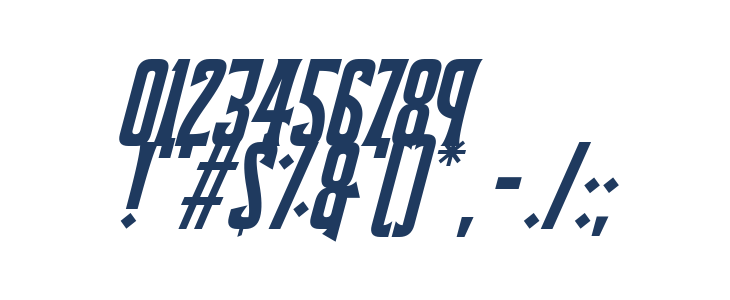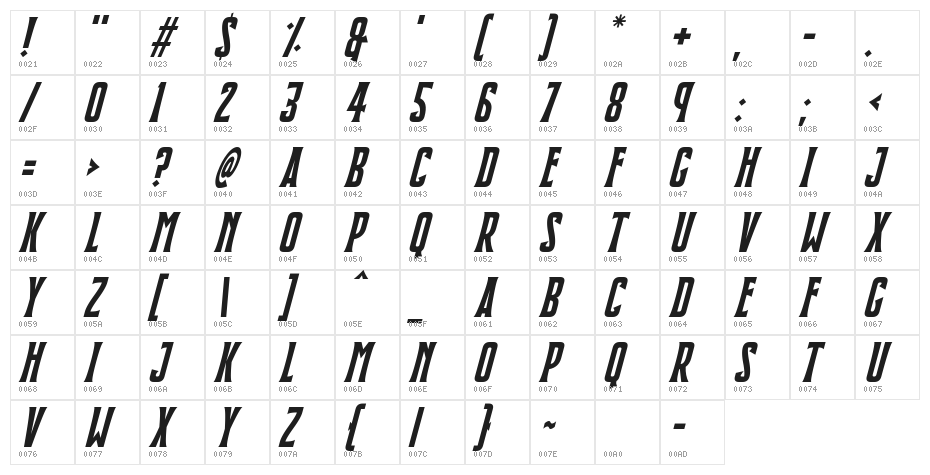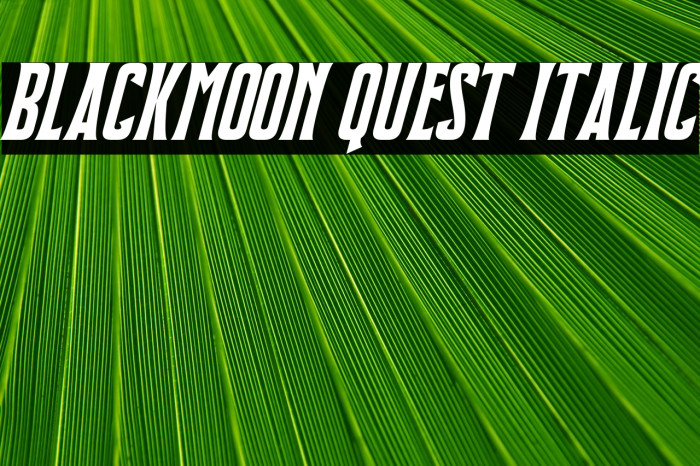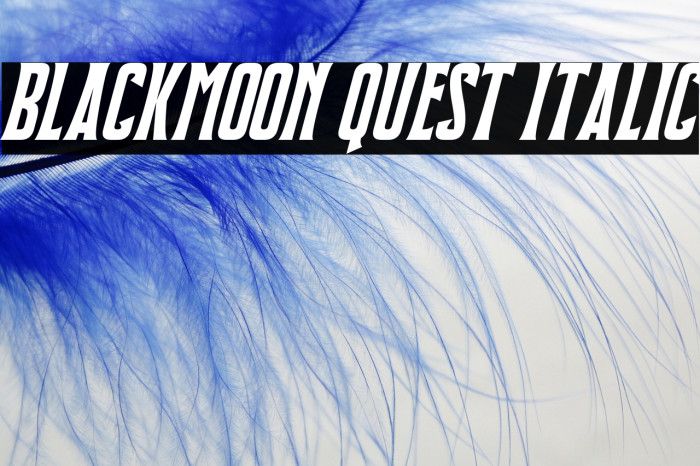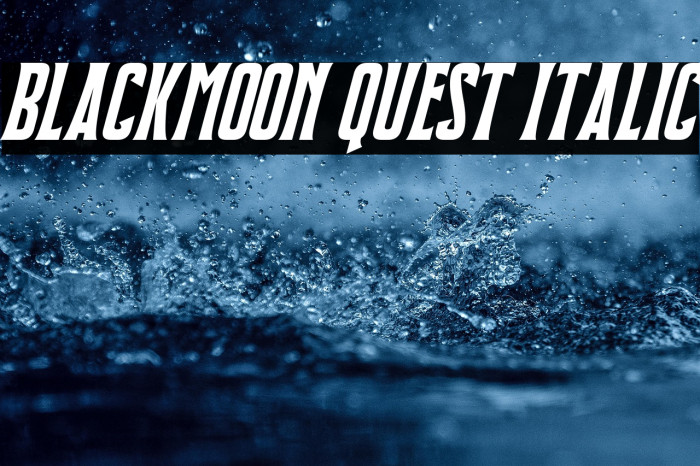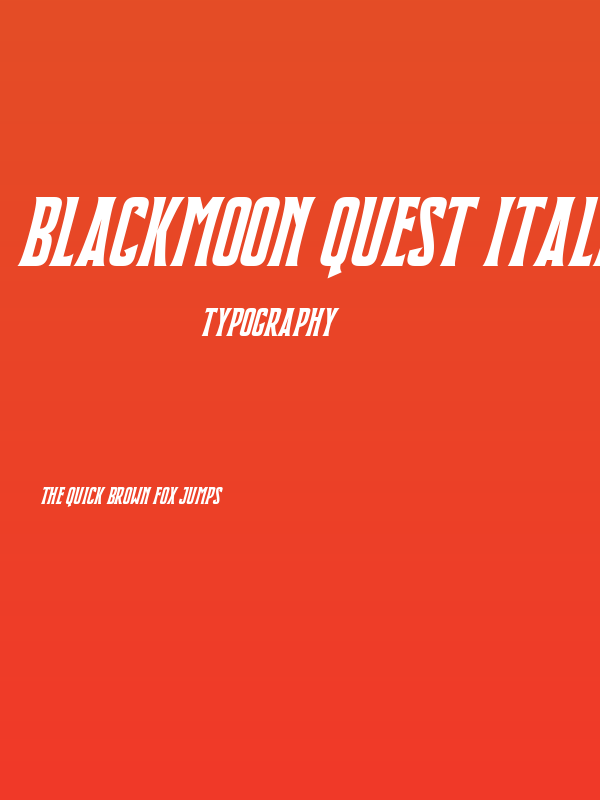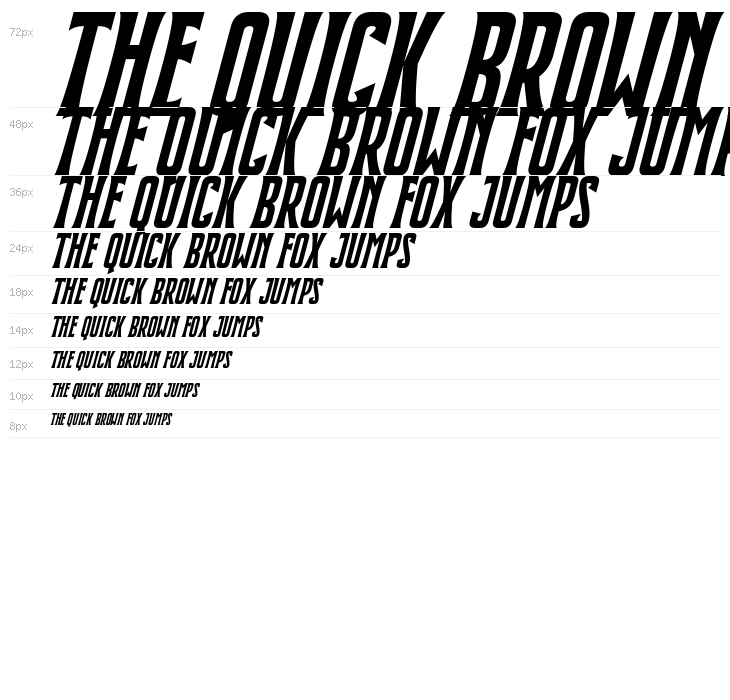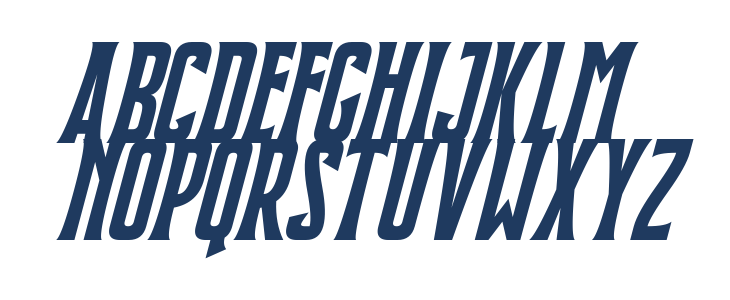
Blackmoon Quest Italic Font
Blackmoon Quest Italic Description
This font features a bold and dynamic italic style with a strong slant, giving it a sense of motion and energy. The characters are tall and narrow, with sharp, angular edges that create a striking and modern appearance. The uppercase and lowercase letters maintain a consistent style, with the same level of slant and boldness. Numbers and special characters are designed to match the overall aesthetic, ensuring a cohesive look across all elements. The font's high contrast in stroke thickness adds to its boldness, making it stand out in any design.
| Proposed Projects | Ideal for sports branding, dynamic posters, edgy magazine covers, and modern advertising campaigns. |